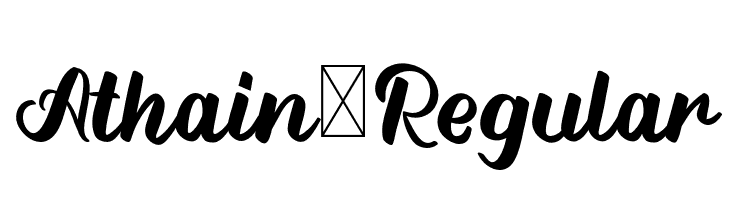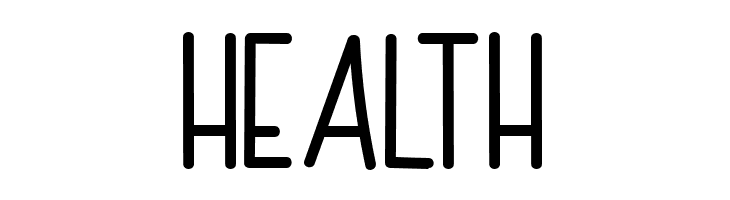
A classic serif typeface with elegant, well-defined characters and moderate stroke contrast.
A futuristic, geometric font with bold outlines and rounded edges.
A modern, geometric sans-serif font with a clean and minimalistic design.
A classic serif font with elegant and balanced proportions.
A geometric, minimalist font with thin, linear strokes and angular shapes.
A bold, distressed font with a vintage, industrial style.
A dynamic, flowing script font with elegant, connected letterforms.
A bold, energetic brush script font with a hand-painted look.
A bold, jagged font with a horror-inspired, eerie aesthetic.
A bold, brush-style font with a hand-drawn, dynamic appearance.